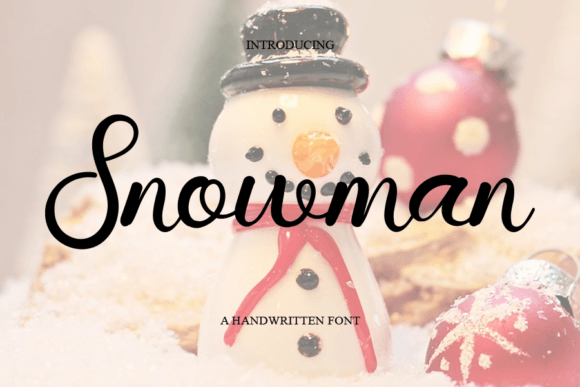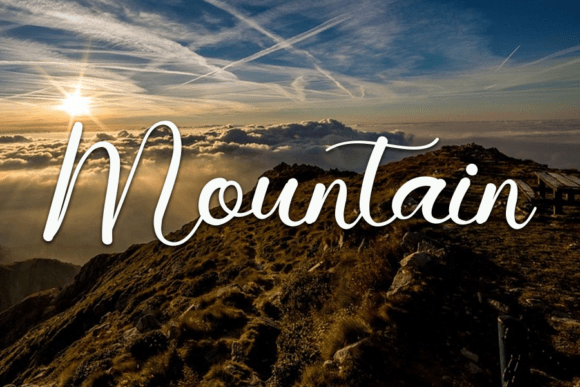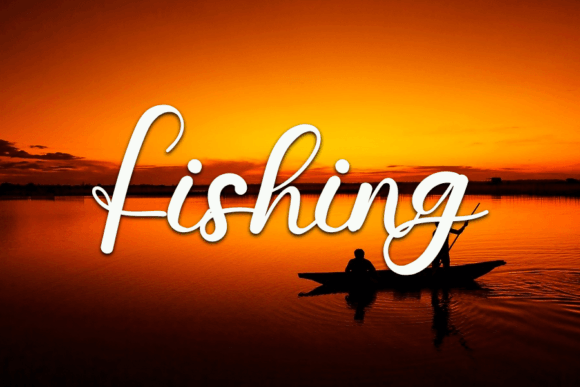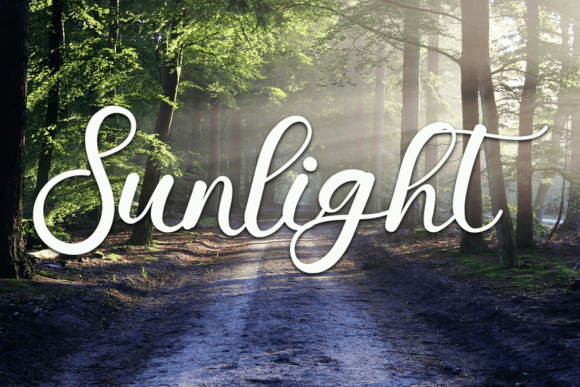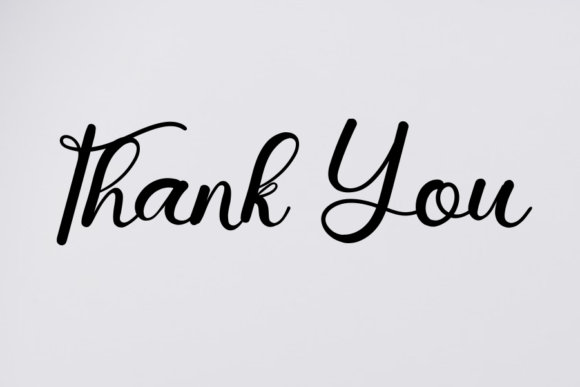
About Snowman Font
Snowman Font is a warm, simple, and friendly handwritten typeface that brings a playful yet approachable tone to your designs. Crafted with clarity and personality in mind, this font is ideal for creators looking to add a charming handwritten touch to their projects.
Whether you’re making DIY greeting cards, creating eye-catching social media posts, or working on digital design layouts, the Snowman font download offers the perfect balance of fun and function. Its rounded, soft strokes make it accessible and versatile for a variety of use cases.
Where to Use Snowman Font
Snowman Font is an excellent choice for personal and professional design tasks that call for a soft and cheerful look. You can use it in:
Craft Projects – Create unique and friendly labels, signs, or custom decals
Greeting Cards – Add warmth and character to birthday or holiday cards
Digital Design – Enhance Instagram posts, Pinterest graphics, or Canva templates
Educational Materials – Ideal for children’s worksheets, posters, and classroom décor
Presentations – Bring personality and friendliness to your slides and headers
Invitations – Great for casual wedding invites, baby showers, and party events
Handwritten Simplicity – Crafted to mimic a clean, personal handwriting style
Smooth and Balanced Form – Great readability across various mediums
Language Support – Includes basic Latin characters, numbers, and punctuation
Why Download Snowman Font?
If you’re seeking a handwritten typeface that feels both lighthearted and approachable, the Snowman font download is an ideal pick. It’s designed to bring joy and warmth to your text while remaining legible and adaptable to a wide range of creative purposes. Whether you’re making heartfelt crafts or designing digital products, this font adds a personal and friendly flair.